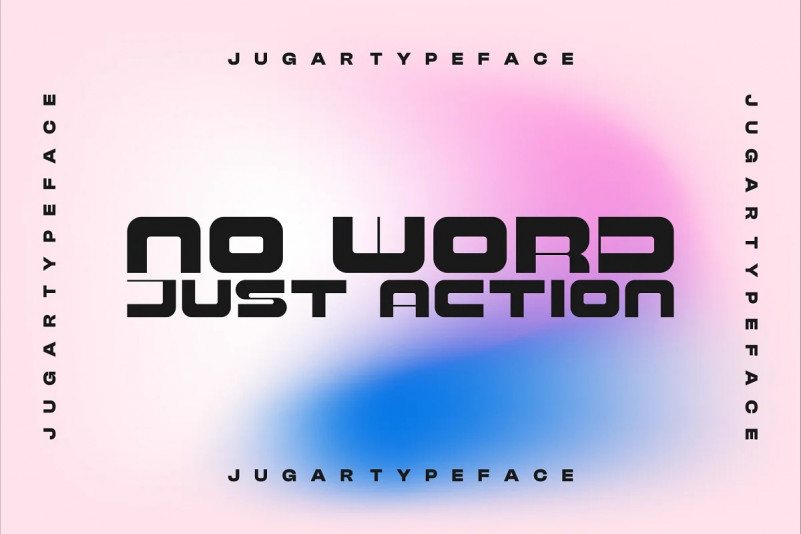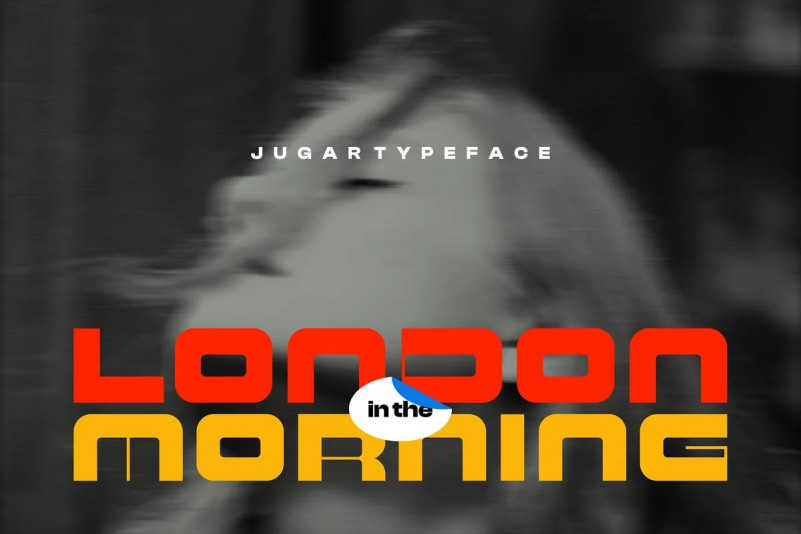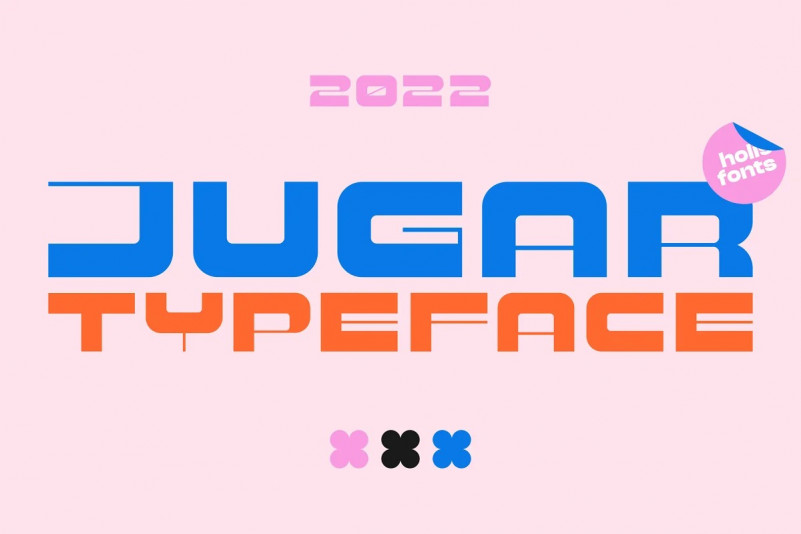
Jugar Font
Hello Everyone, introduce our new product, A modern display typeface “Jugar” good for poster design, social media branding, logo design, logo type, etc.